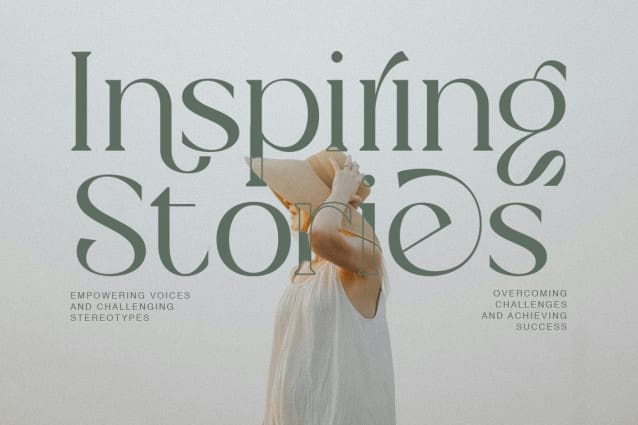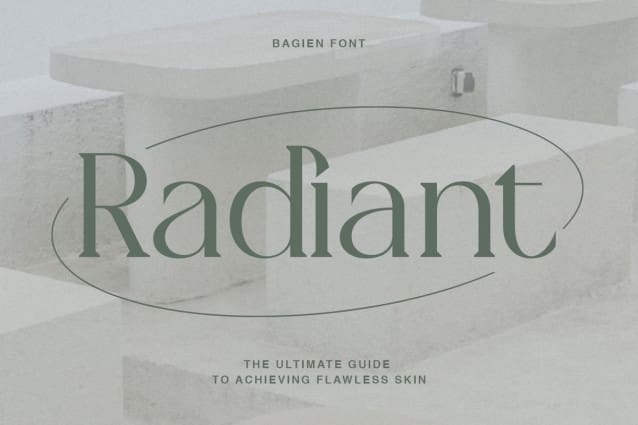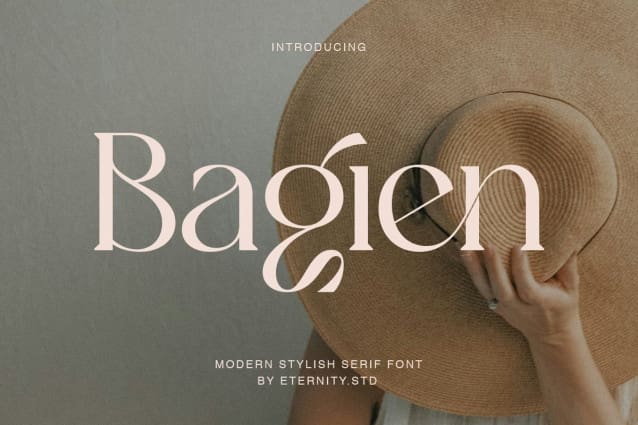
Bagien Font
Bagien Font​​​​​​! This font isn’t just about style—it’s about making your designs luxury with elegance. With its sleek alternates and graceful ligatures, Bagien is perfect for all your graphic design needs. Whether you’re crafting a logo, designing a poster, or creating a stunning website, this font delivers.